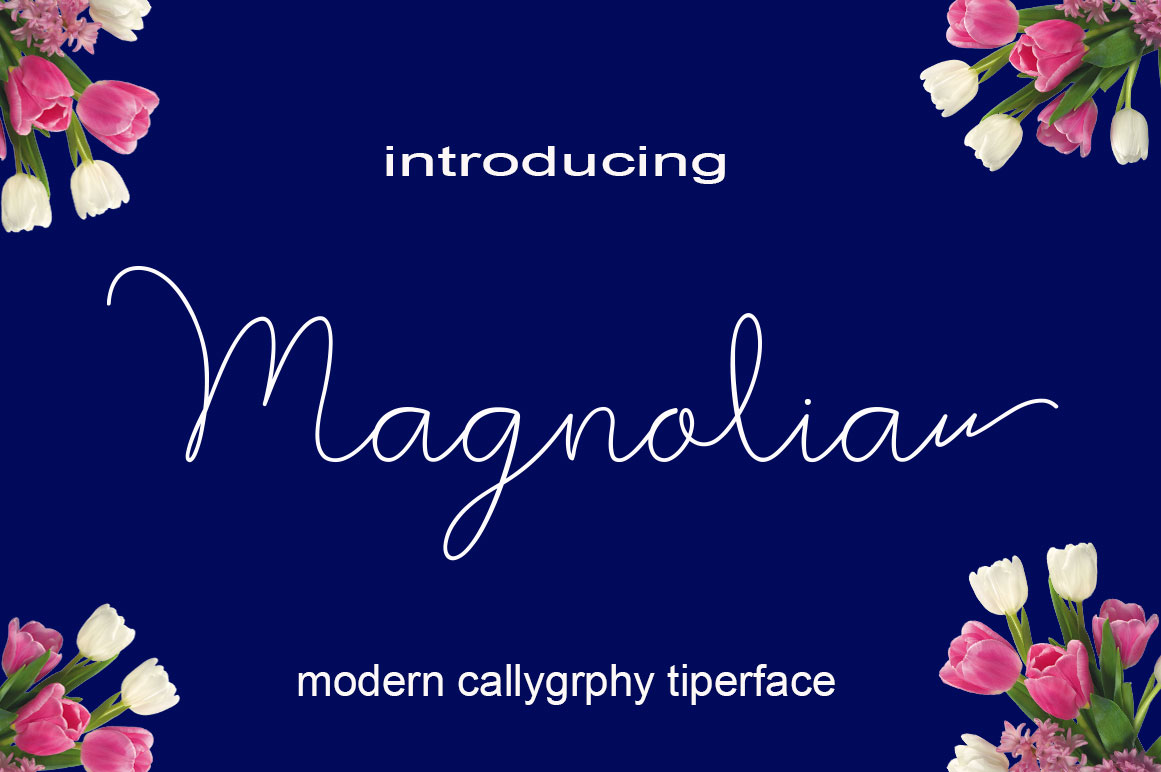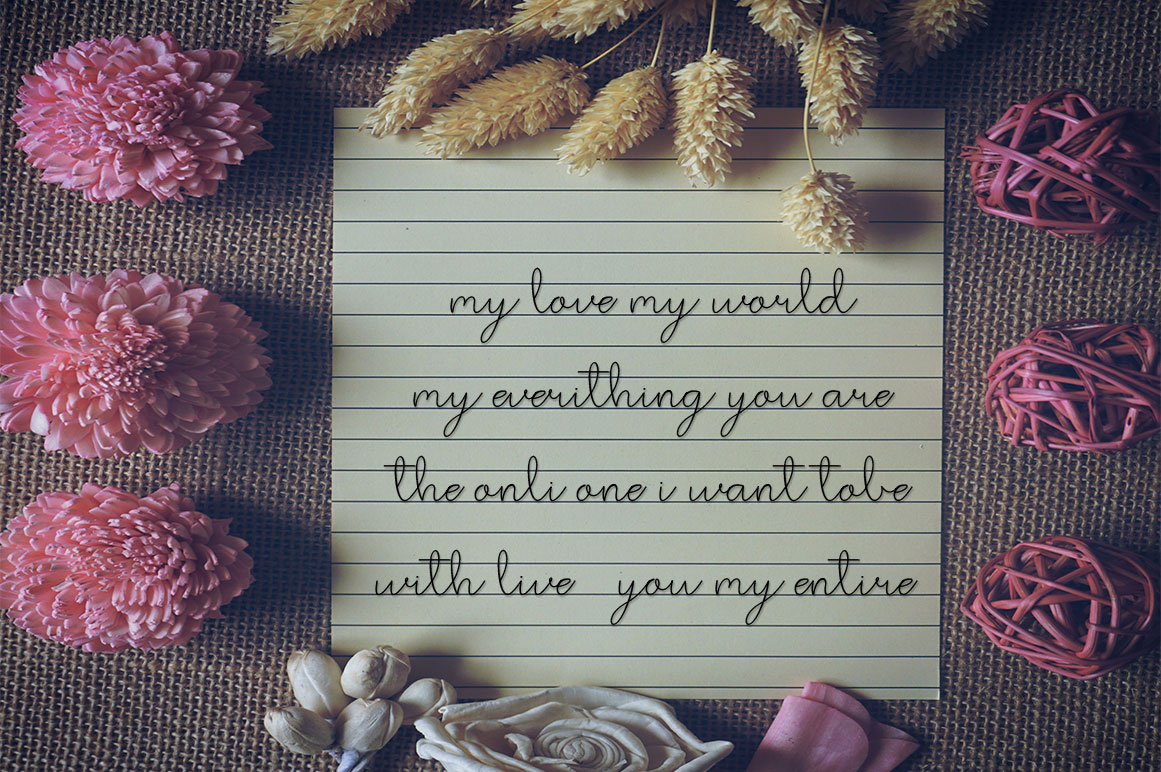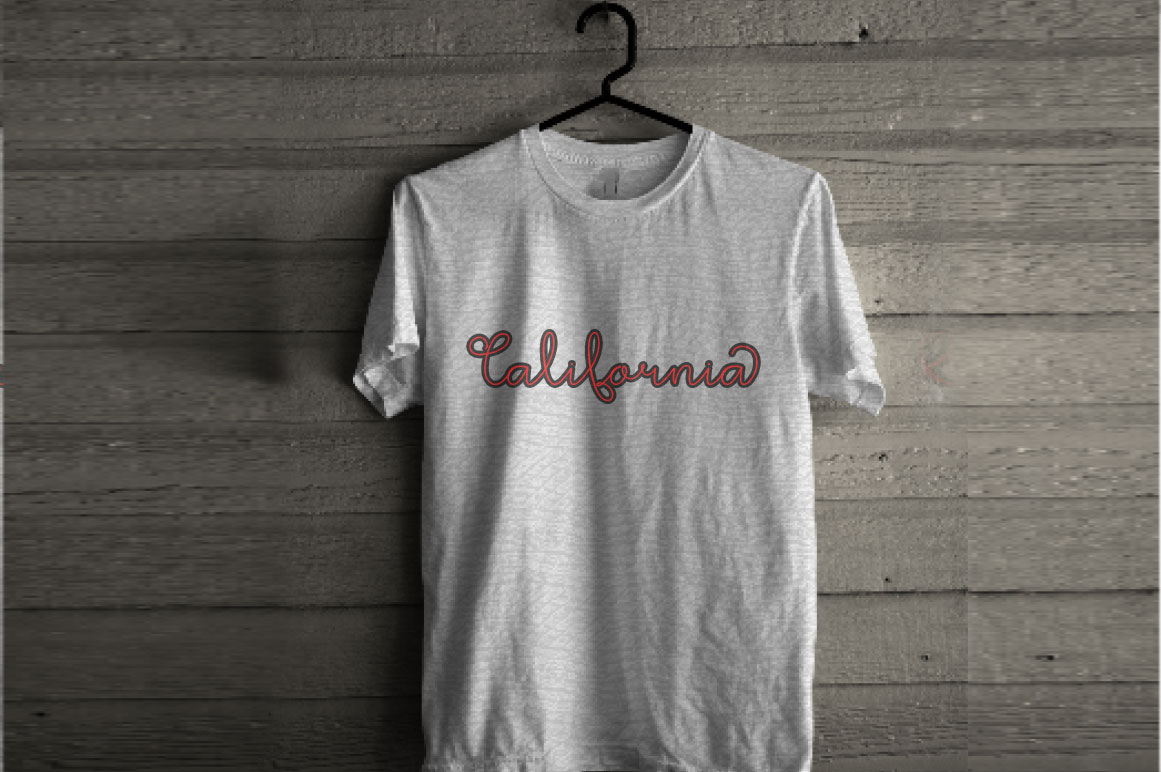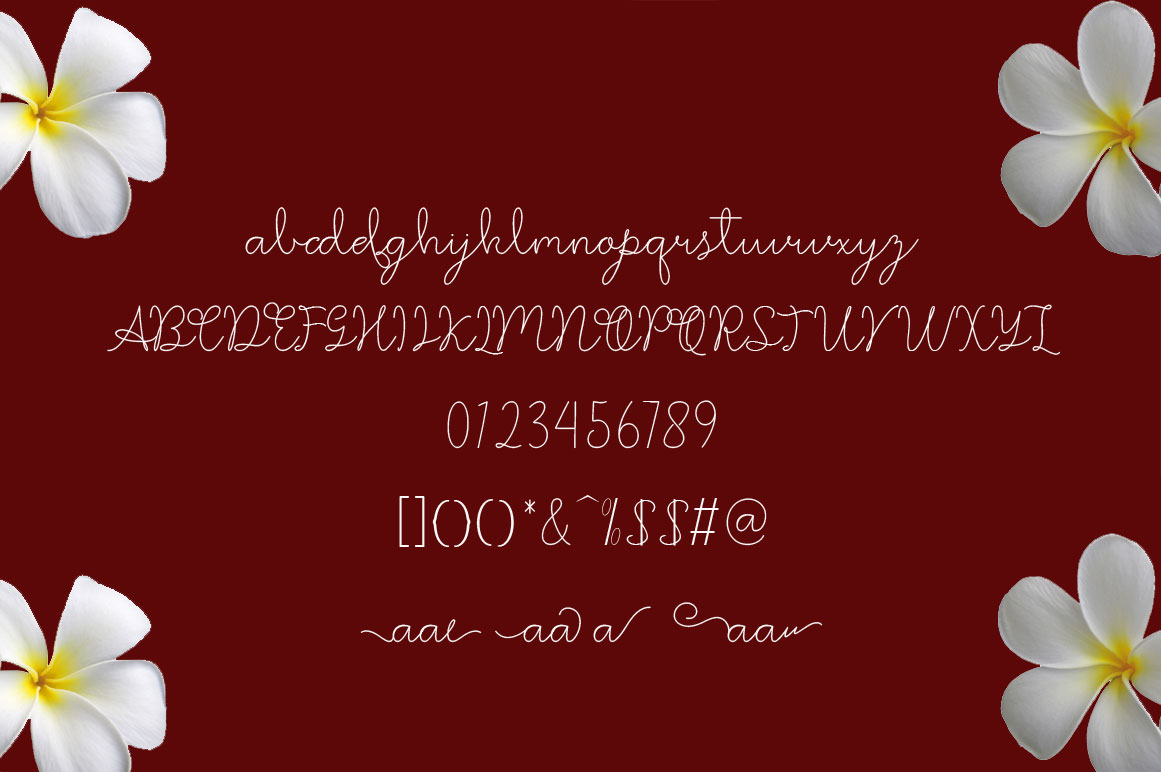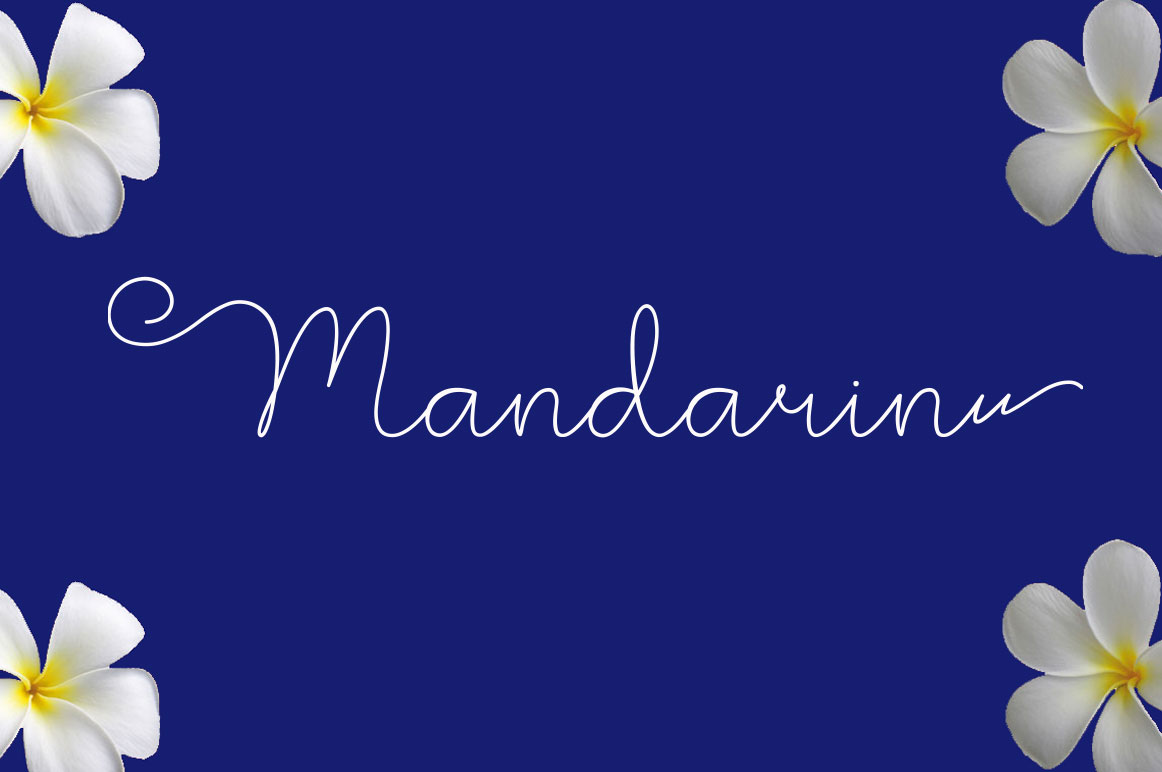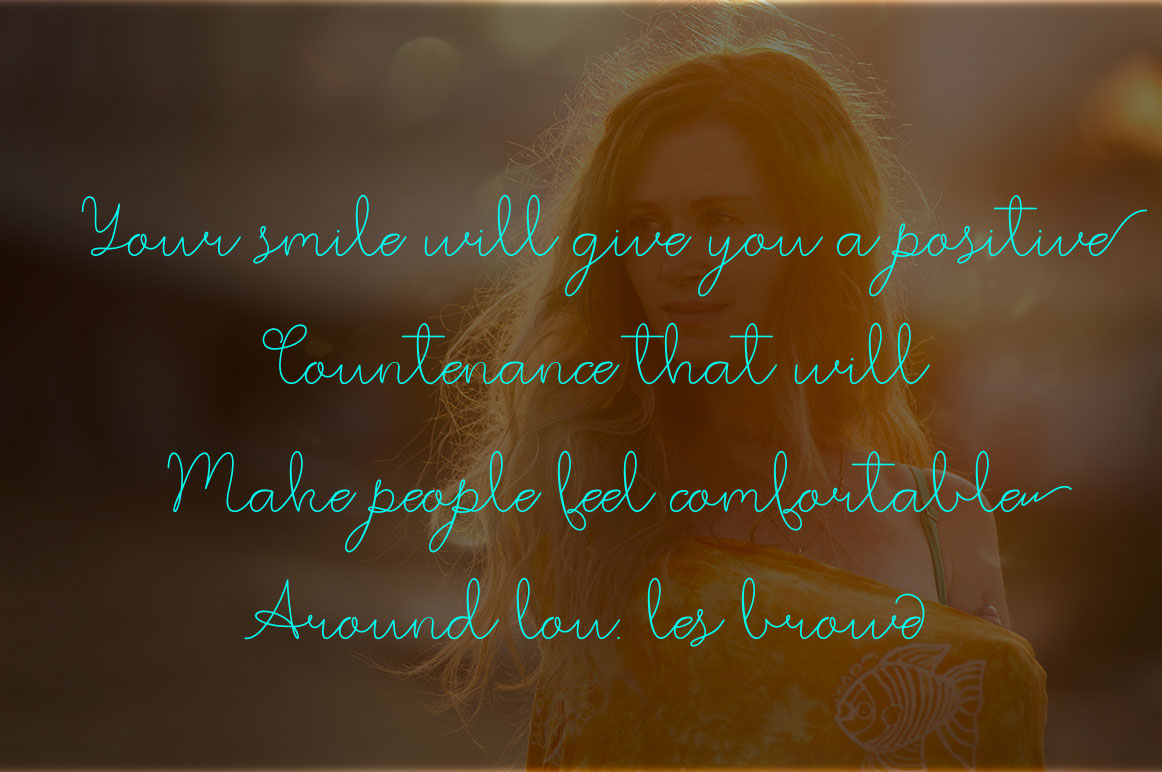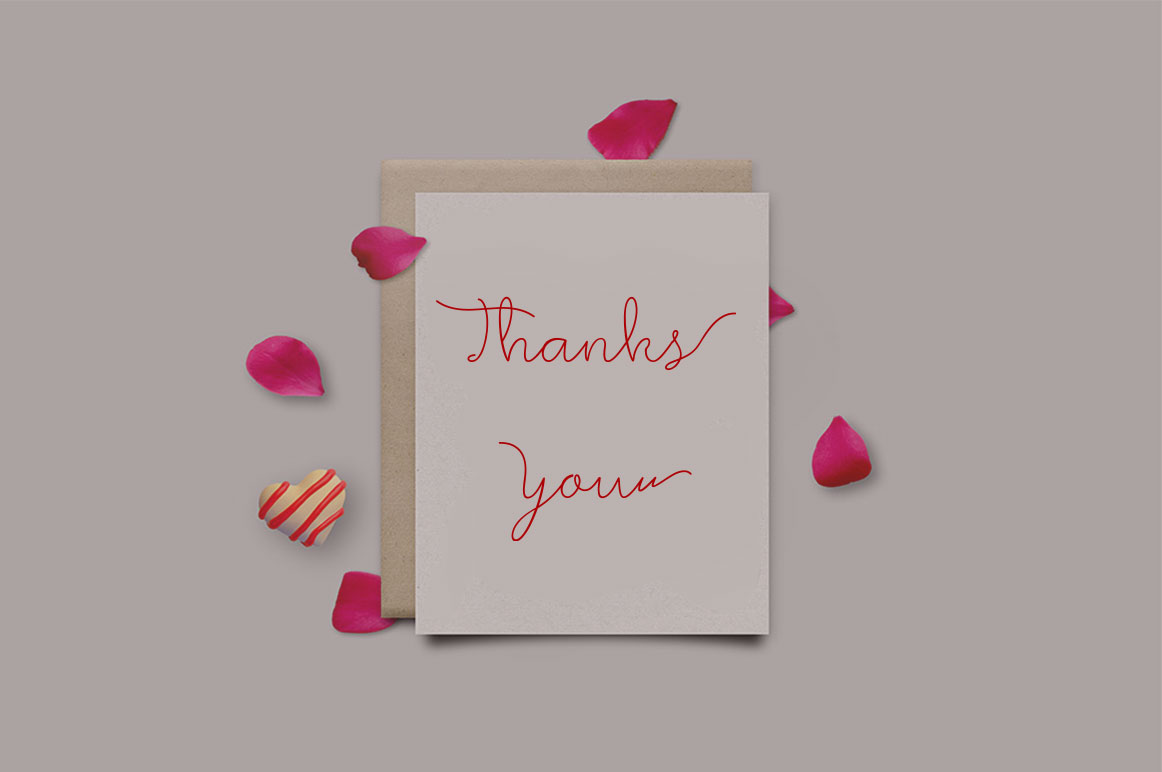
Magnolia Font
About Magnolia Font
Magnolia is a fun, monoline script font that looks great in a large range of projects. This font is simply crafted and legible, and works for giving your designs a relaxed yet fashionable look.